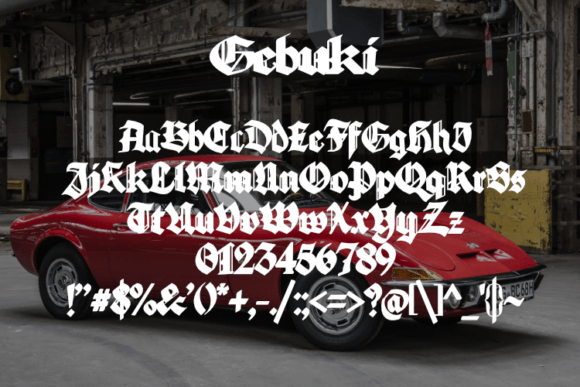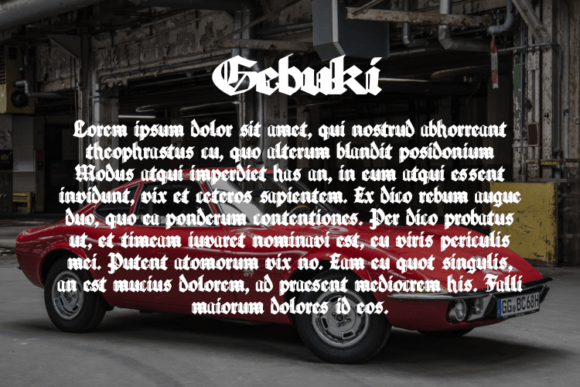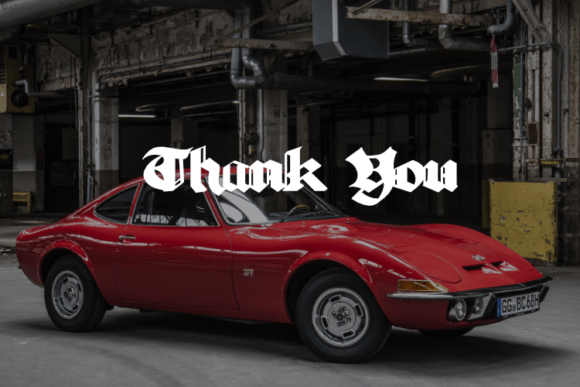
Unleash Your Creative Prowess with Gebuki Font: The Ultimate Design Companion
In the realm of design, the right font can make all the difference. It can elevate your creations, convey your message, and leave a lasting impression on your audience. This is where Gebuki Font comes into play – a versatile and sublime typeface that can remarkably enhance the charm of your apparel or merchandise designs. In this article, we’ll dive into the world of Gebuki, exploring its features, benefits, and applications, and why it’s become a go-to choice for designers and crafters alike.
What is Gebuki Font?
Gebuki Font is a meticulously crafted typeface designed to cater to the diverse needs of designers, crafters, and artists. Its unique blend of elegance and adaptability makes it an ideal choice for a wide range of design projects, from apparel and merchandise to branding and marketing materials. With Gebuki, you can add a touch of sophistication and style to your creations, setting them apart from the rest.
Key Features of Gebuki Font
- Versatility: Gebuki Font is designed to be versatile, making it suitable for various design projects, including apparel, merchandise, branding, and more.
- Elegance: Gebuki’s unique design elements add a touch of elegance and sophistication to your creations.
Benefits of Using Gebuki Font
So, why choose Gebuki Font for your design projects? Here are some benefits that make it a top choice among designers and crafters:
- Effortless Integration: Gebuki’s adaptability ensures that it effortlessly fits into all designs, making it a perfect choice for projects that require a unique touch.
- Time-Saving: With Gebuki, you can save time and effort in searching for the perfect font, as it can be used across various design projects.
- Consistency: Gebuki’s consistent design elements help maintain a cohesive look across your designs, enhancing your brand’s visual identity.
- Creativity Boost: Gebuki’s elegance and versatility can spark your creativity, helping you to experiment with new design ideas and concepts.
Applications of Gebuki Font
Gebuki Font is an excellent choice for a wide range of design projects, including:
- Apparel Design: Add a touch of style and sophistication to your clothing designs, making them stand out in the market.
- Merchandise Design: Create eye-catching merchandise, such as mugs, tote bags, and phone cases, that appeal to your target audience.
- Branding and Marketing: Use Gebuki to create consistent branding materials, such as logos, brochures, and business cards, that reflect your brand’s personality.
In conclusion, Gebuki Font is a versatile and sublime typeface that can remarkably enhance the charm of your apparel or merchandise designs. Its adaptability, compatibility, and elegance make it a go-to choice for designers and crafters worldwide. With Gebuki, you can transform your designs, add a touch of sophistication, and leave a lasting impression on your audience. So, embark on the journey to elevate your designs with the aesthetic allure of Gebuki.